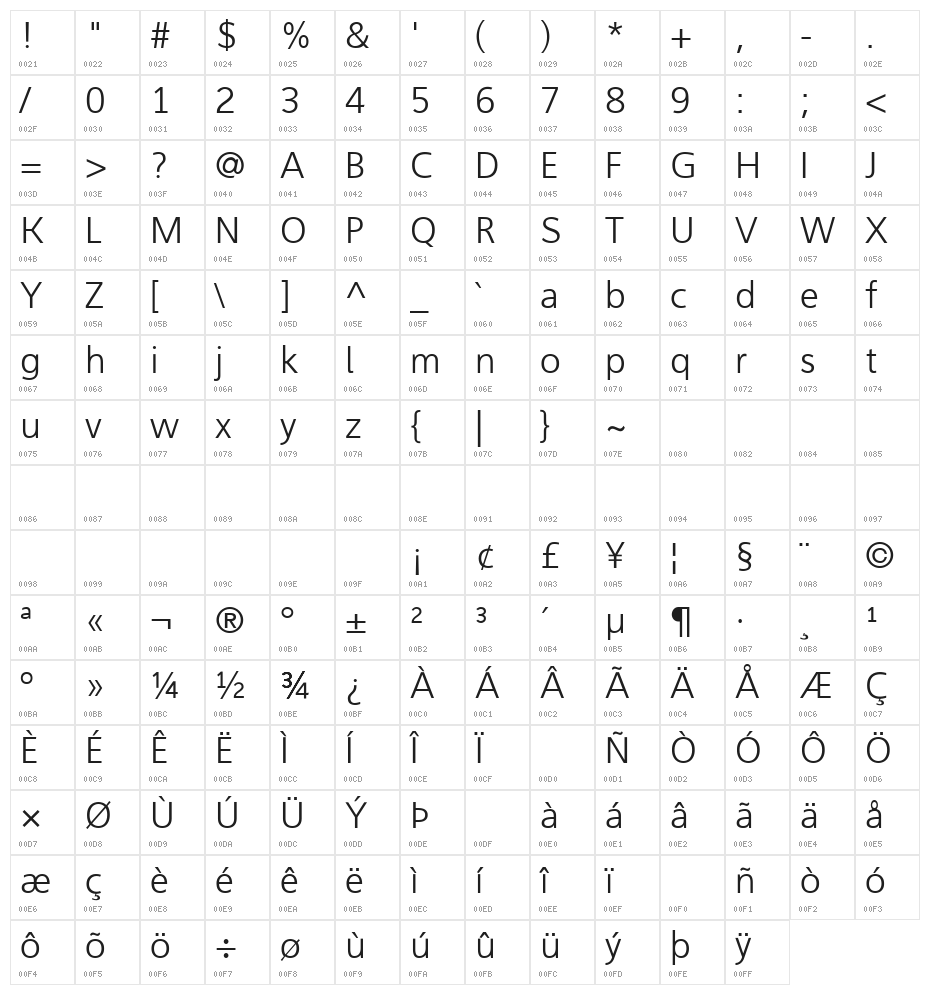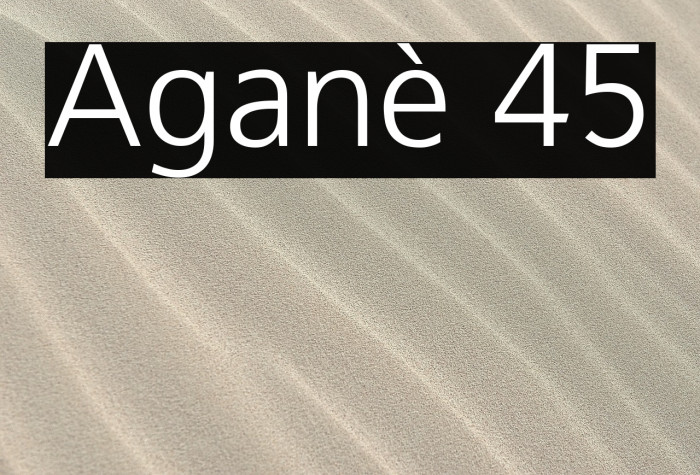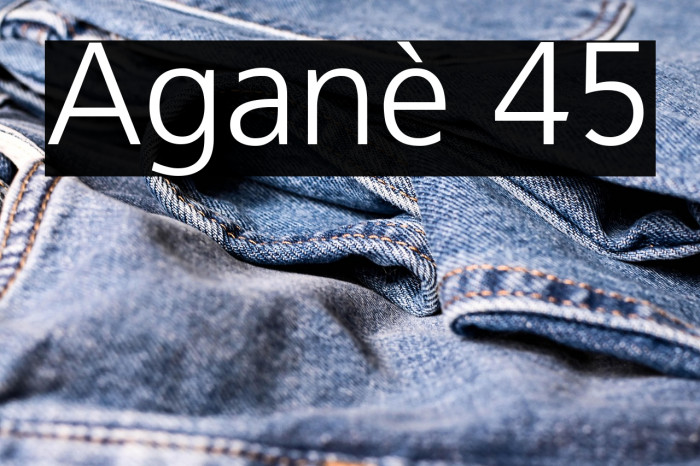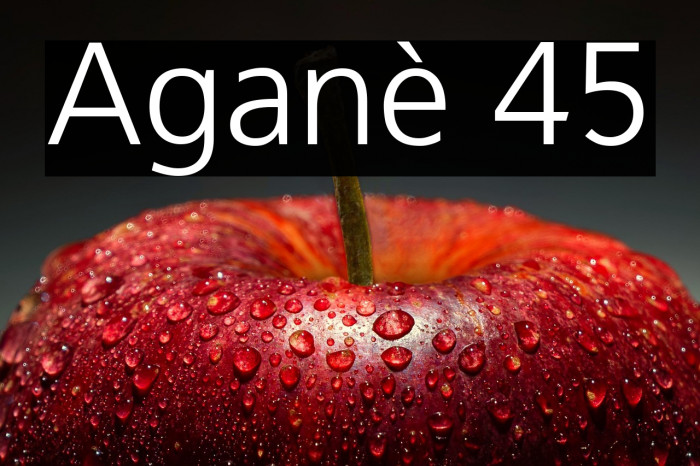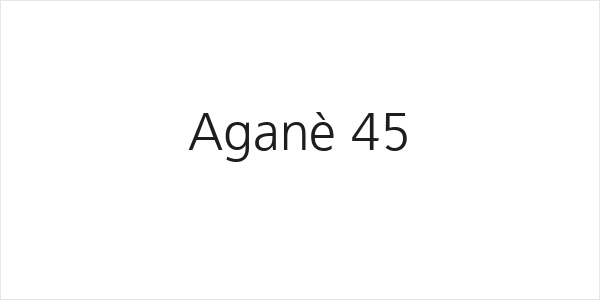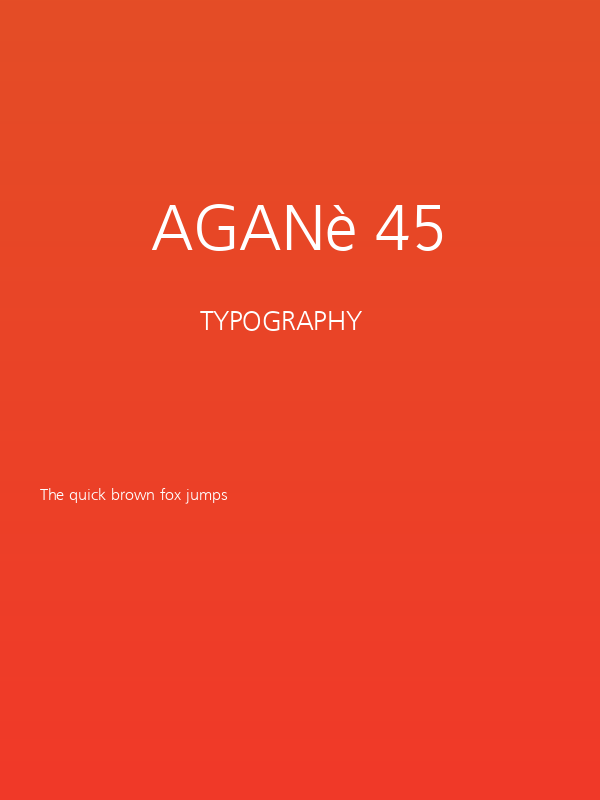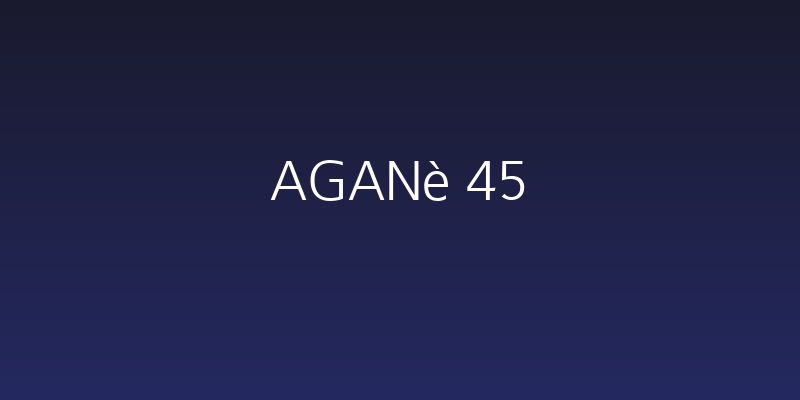
Aganè 45 Font
Aganè 45 Description
This font features a clean and modern sans-serif design with a focus on readability and simplicity. The characters are evenly spaced, with a consistent stroke width that gives it a uniform appearance. The uppercase letters are bold and assertive, while the lowercase letters maintain a friendly and approachable feel. The numerals are clear and distinct, making them easy to read. Special characters are well-integrated, maintaining the overall aesthetic of the font. Its versatility makes it suitable for a wide range of applications, from digital interfaces to print media.
| Proposed Projects | Ideal for web design, corporate branding, user interfaces, and editorial layouts. |